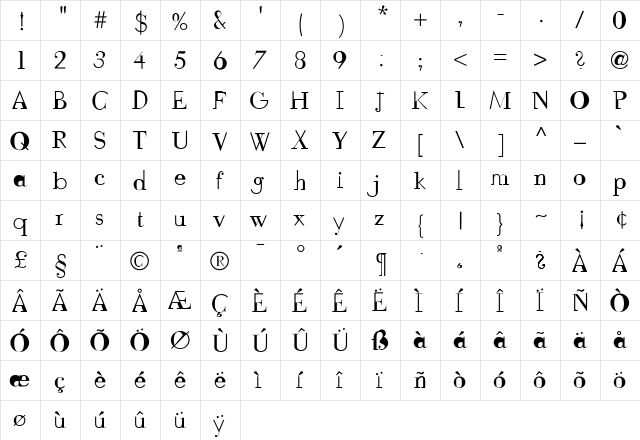
FudoniOne Regular
| Foundry | Fudoni One> by Max Kisman |
Design Context for FudoniOne Typeface
FudoniOne offers clean, dependable letterforms without strong stylistic allegiance, making it a practical choice for designers who need flexibility.